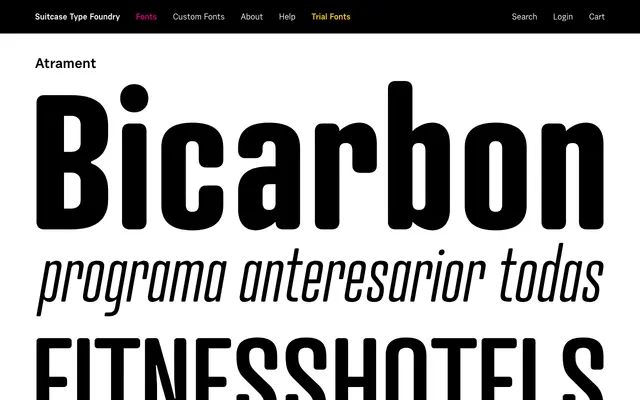
A display typeface from Suitcase Type Foundry whose name references ink itself.
Atrament takes its name from the Latin and Czech word for ink, suggesting a typeface with a strong connection to letterpress or calligraphic tradition. The page content available is too limited to detail its full character or weight range. Suitcase Type Foundry, based in Prague, is known for carefully crafted Central European type design.
The name 'Atrament' (meaning ink) and its placement on a type foundry's display section suggests a display typeface, though the scraped content is too sparse to determine a more precise subcategory.